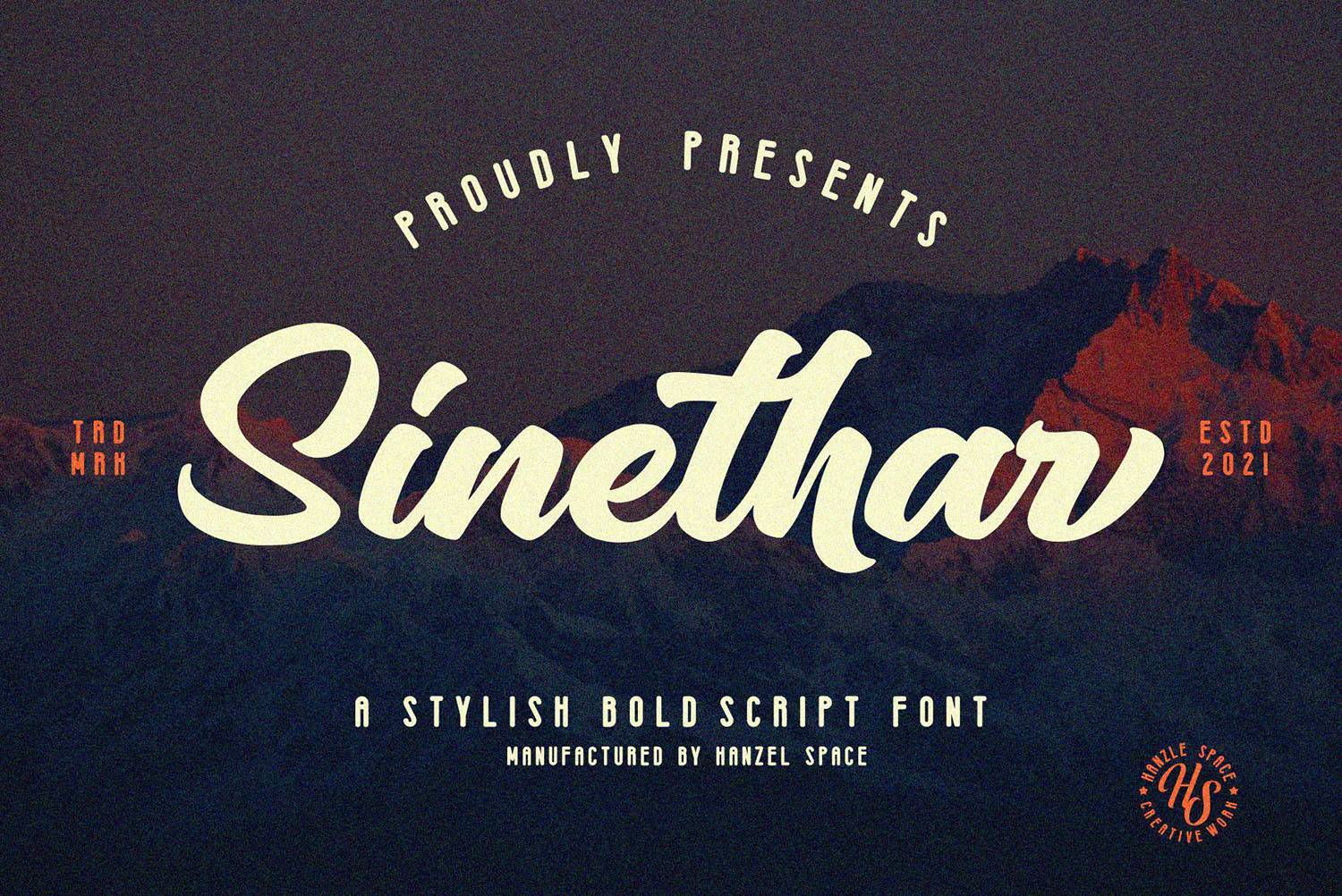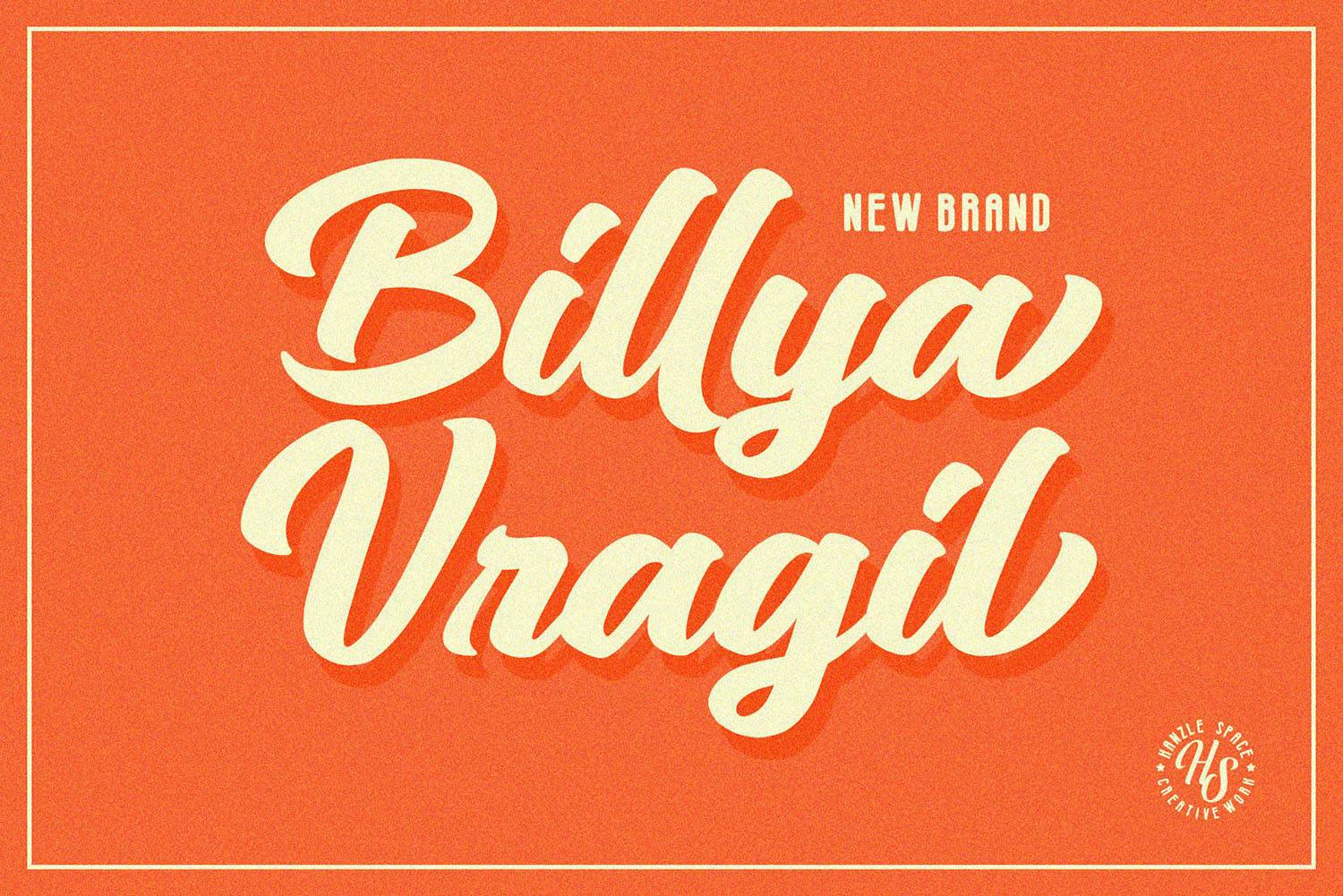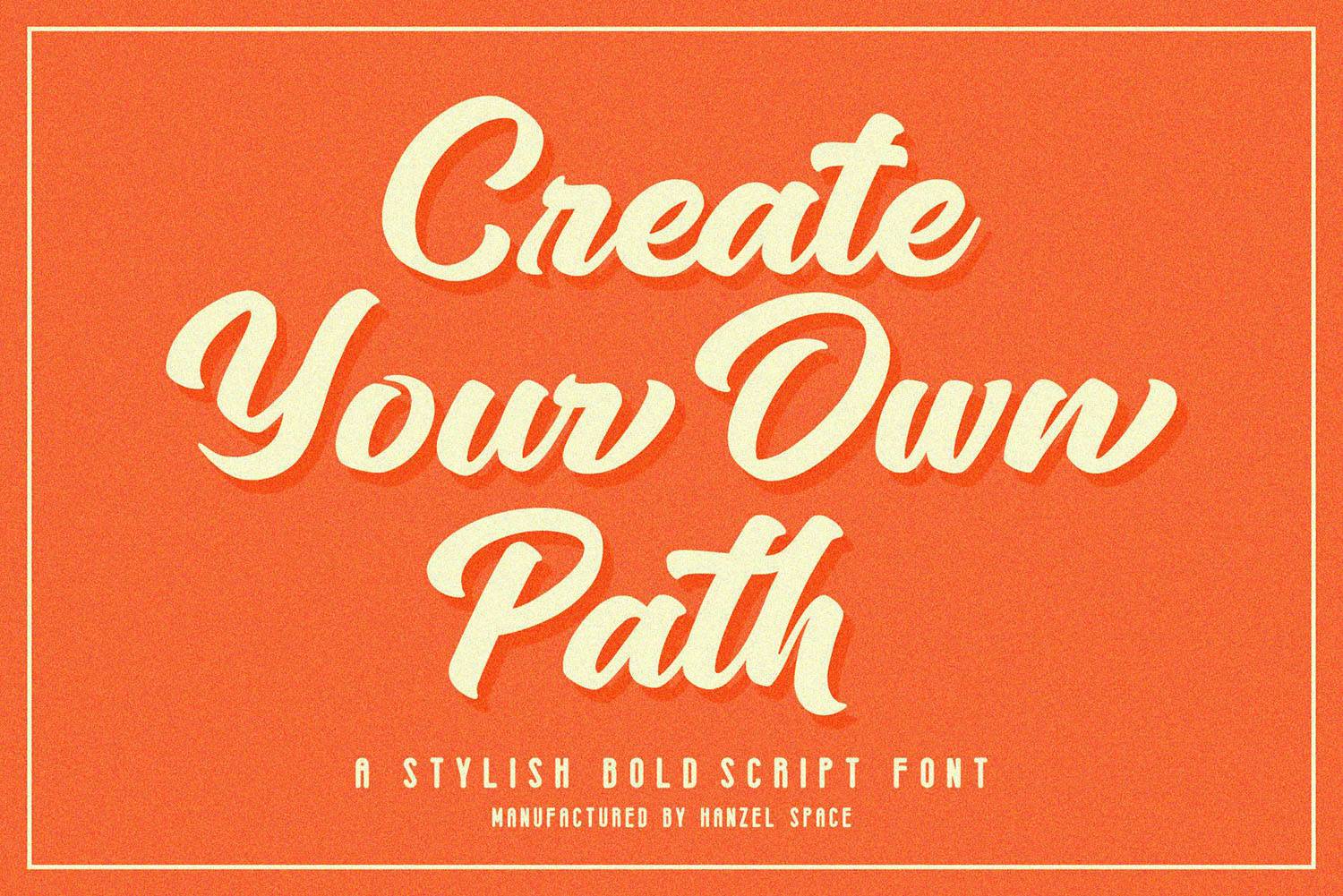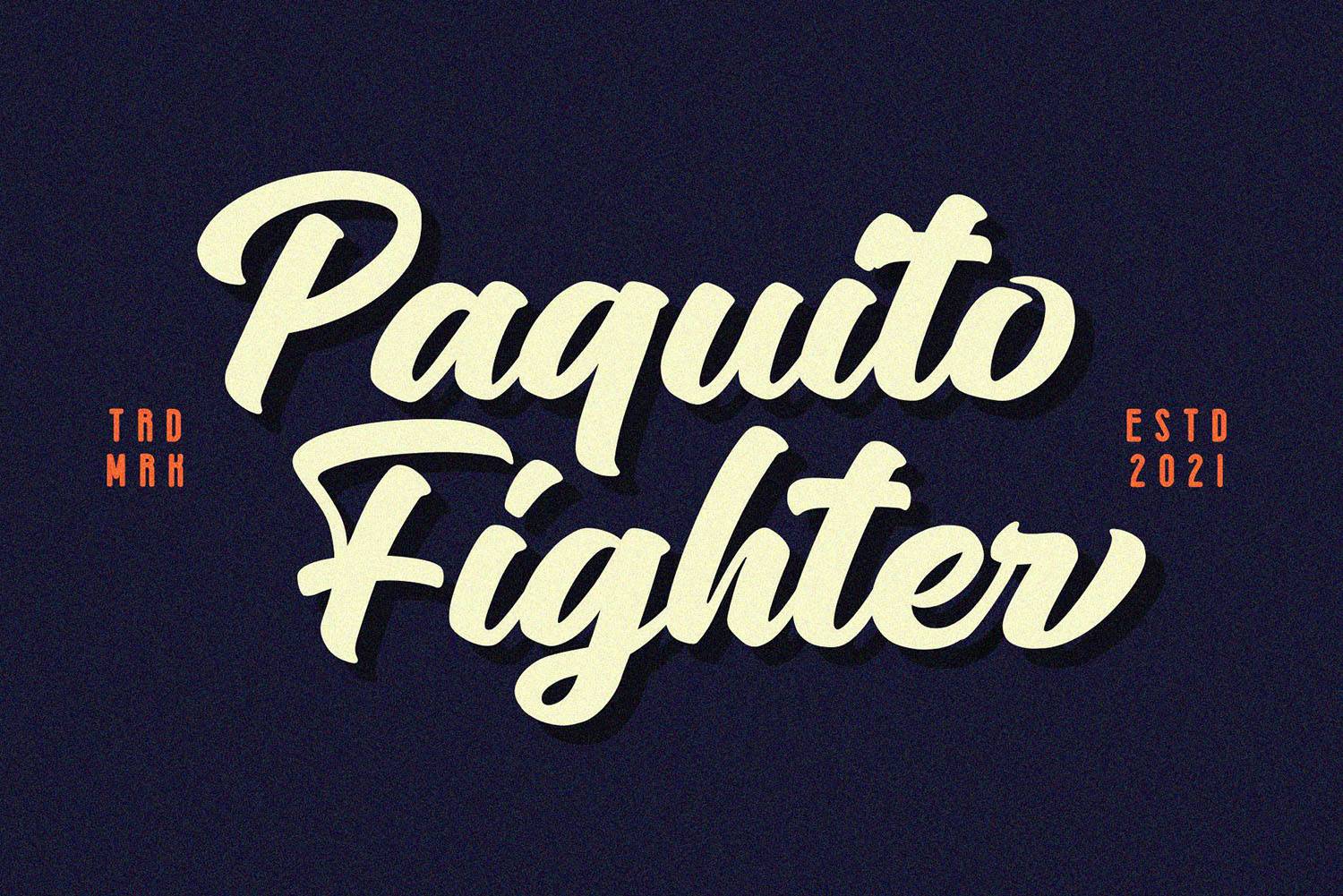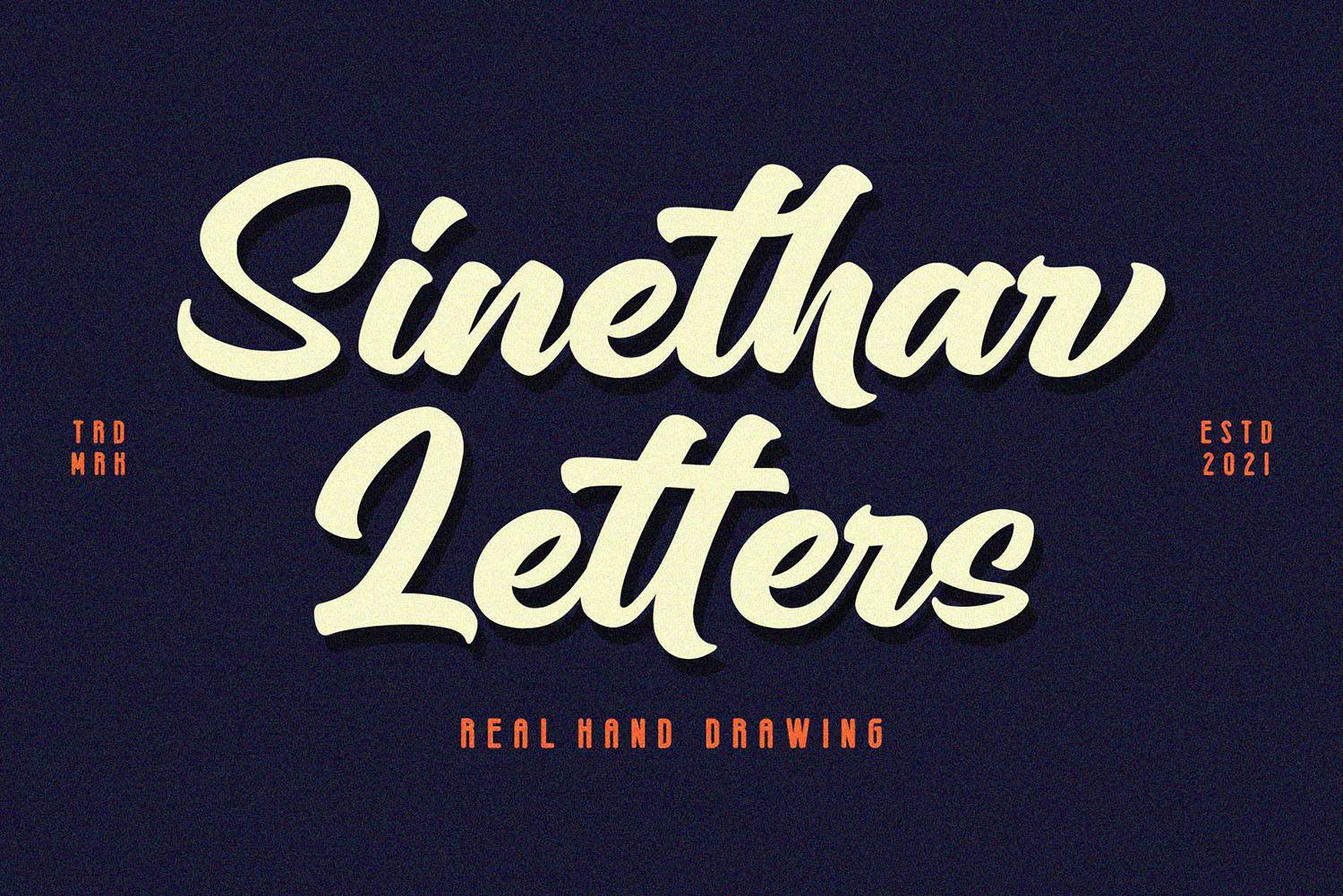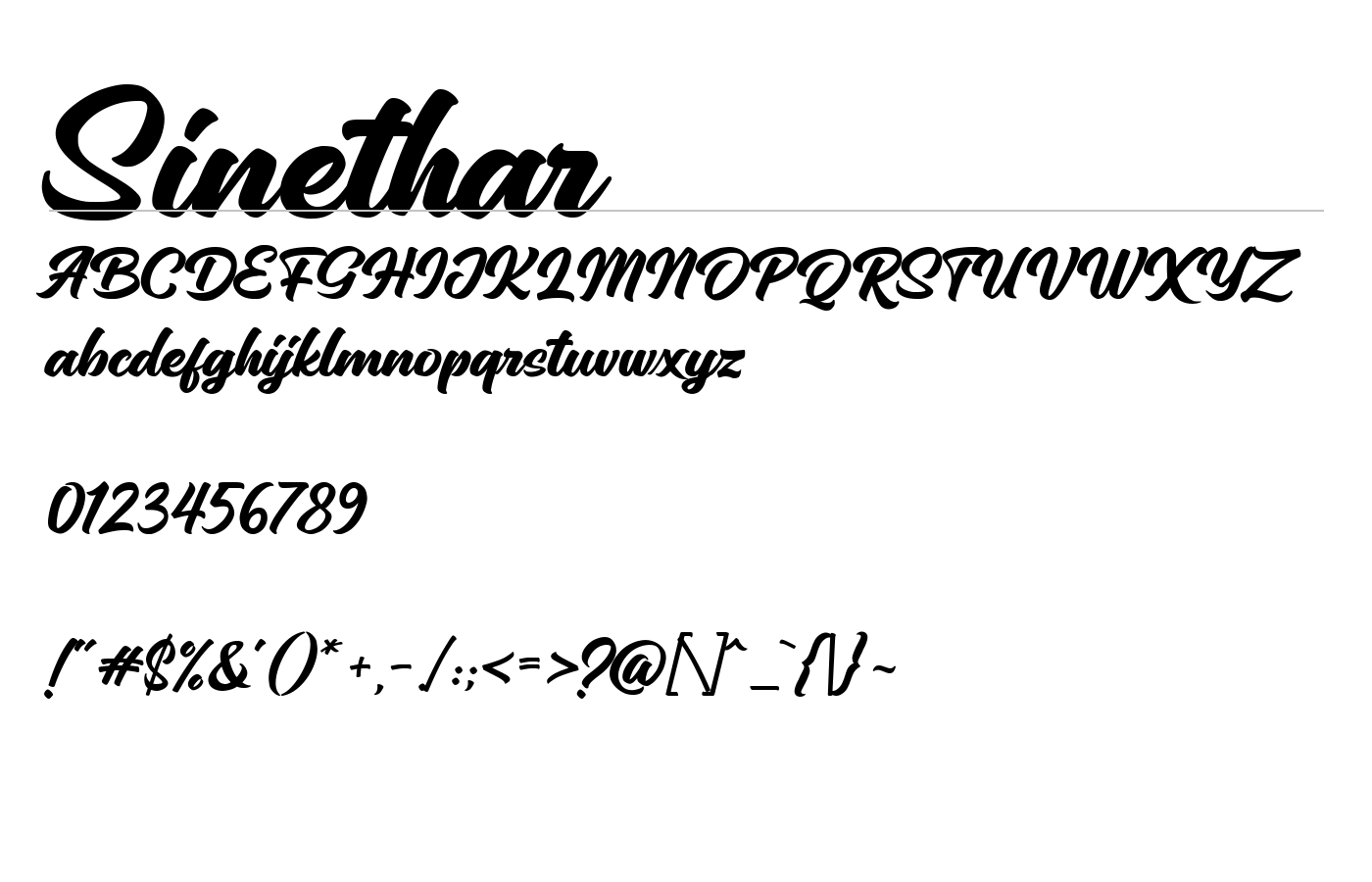
Sinethar is a bold and lively script font with smooth, flowing strokes that create a warm and approachable feel. Its strong weight and slightly condensed style make it ideal for eye-catching headlines, logos, or branding that seeks a friendly yet elegant touch. This font works well for creative and casual design projects where personality and readability are both essential.
Sinethar Font
About Sinethar Font
| Font family | Sinethar Font |
| Release date | 2021-02-23 |
| Designer | Haanief Farandi |